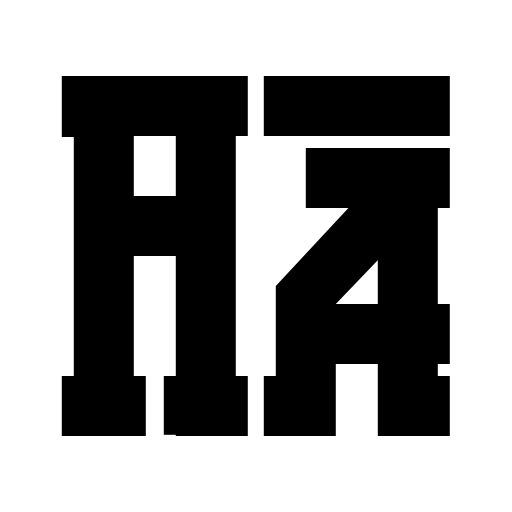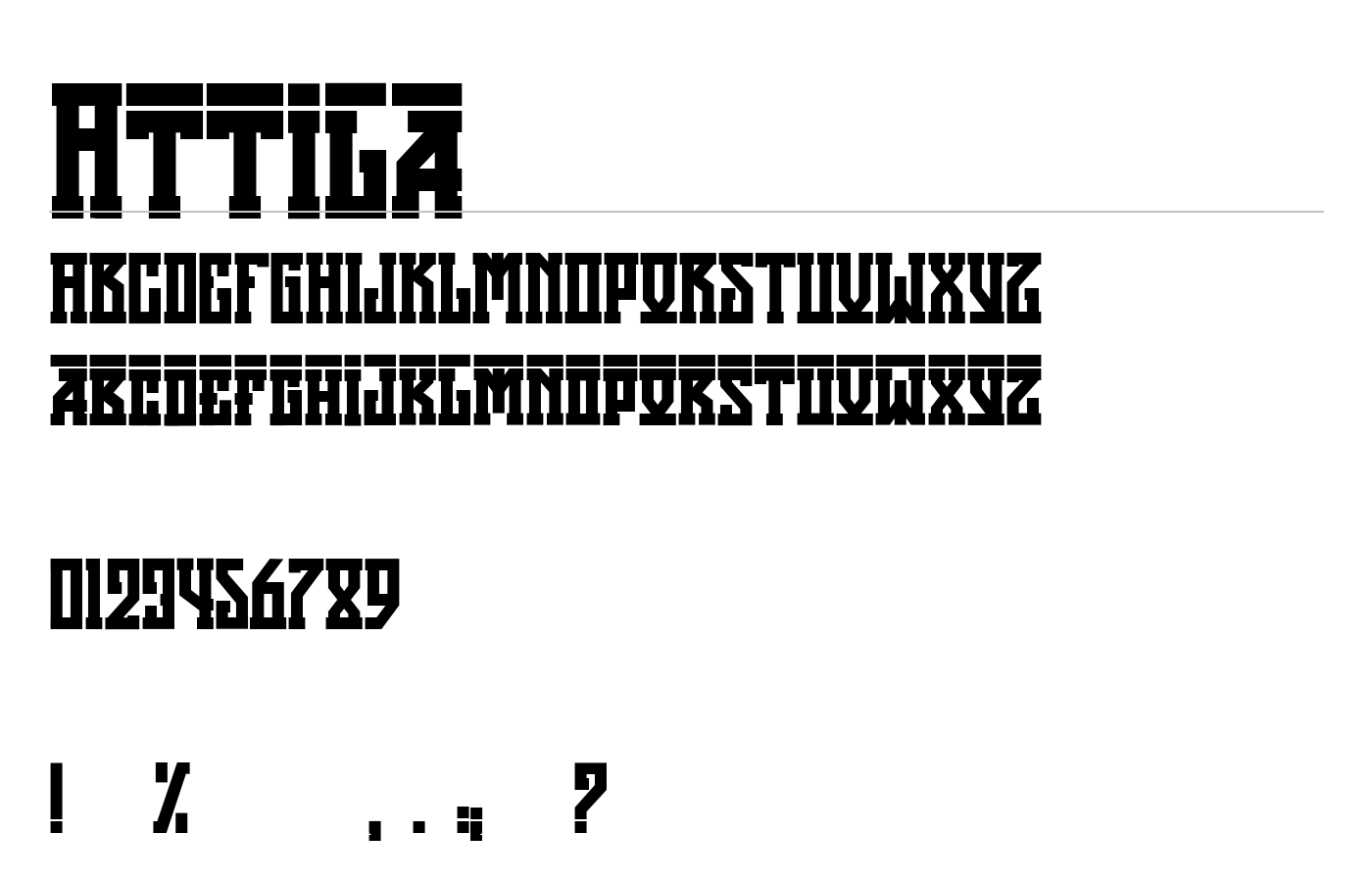
Attila is a bold, condensed slab serif font with a strong geometric structure and high contrast between thick and thin strokes. Its rigid, blocky forms and sharp edges evoke a vintage, industrial feel, making it ideal for striking headlines, posters, and branding that demands a powerful, authoritative presence. This font works best in display contexts where impact and a bold statement are essential.
Attila Font
About Attila Font